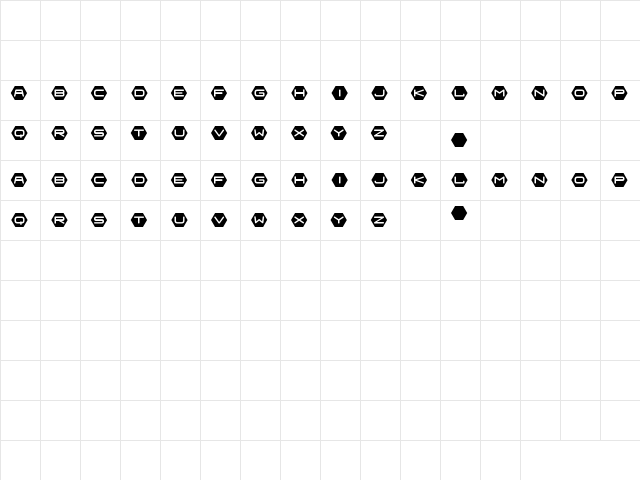
Fraulein Hex Regular
Design Context for Fraulein Hex Typeface
Fraulein Hex is a composed and adaptable typeface that performs quietly and consistently across a wide range of design contexts.
Pro Tip: Use Fraulein Hex in both headline and body roles to test its range before committing to a single application.